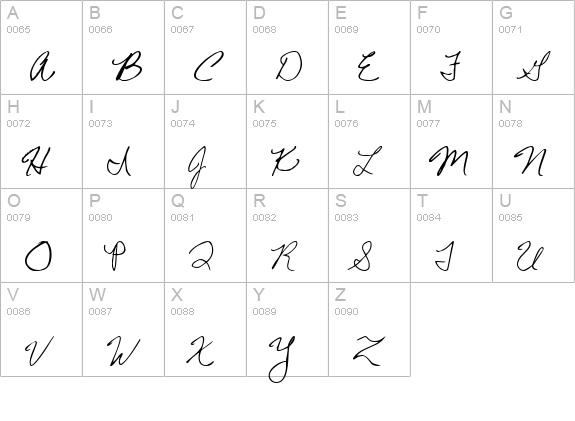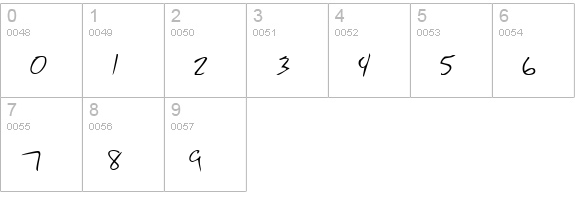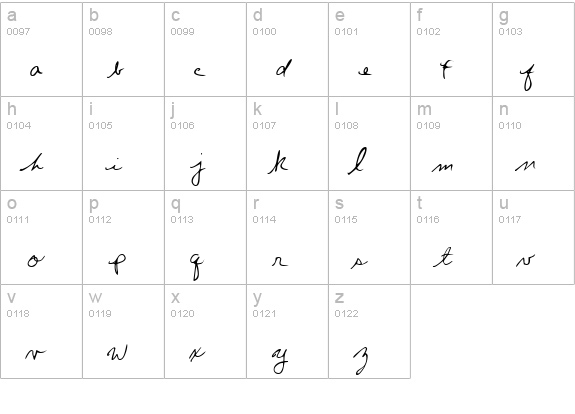
Chris's Handwriting Font Details
Chris's Handwriting font is a charming and whimsical typeface that exudes a personal touch. With its flowing strokes and unique flair, this font adds a touch of creativity and individuality to any project. Perfect for adding a personal touch to invitations, greeting cards, or any design that needs a handwritten feel. Best of all, Chris's Handwriting font is available for free download at FontsMarket.com. Embrace the beauty of handwritten text with this delightful font that is sure to bring a touch of warmth and personality to your designs. Whether you're a designer looking for a unique font or someone who simply appreciates the art of handwriting, Chris's Handwriting font is a must-have addition to your collection. Download it now and start adding a personal touch to your projects today!